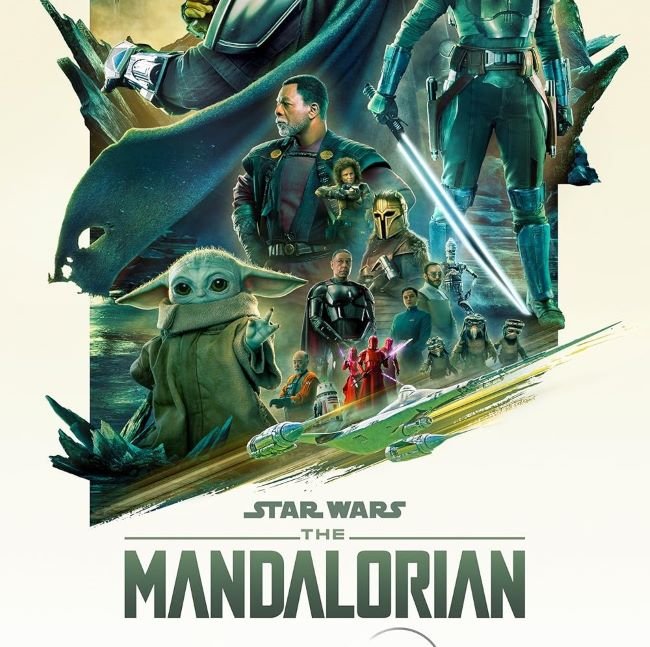
The Mandalorian font establishes the visual grammar of Jon Favreau’s 2019 Disney+ Star Wars series before a single frame has played — angular, weathered lettering that evokes ancient warrior cultures filtered through the specific visual synthesis of Spaghetti Western and samurai cinema that defines the show’s aesthetic DNA. The typography blends the Star Wars universe’s established galactic authority with a more rugged, frontier-town quality that sets The Mandalorian apart from the main saga films: this is the typography of the Outer Rim, of cantinas and desert planets and a man who never removes his helmet. The freely available The Mandalorian Font brings this battle-worn, galaxy-far-away aesthetic to designers’ work.